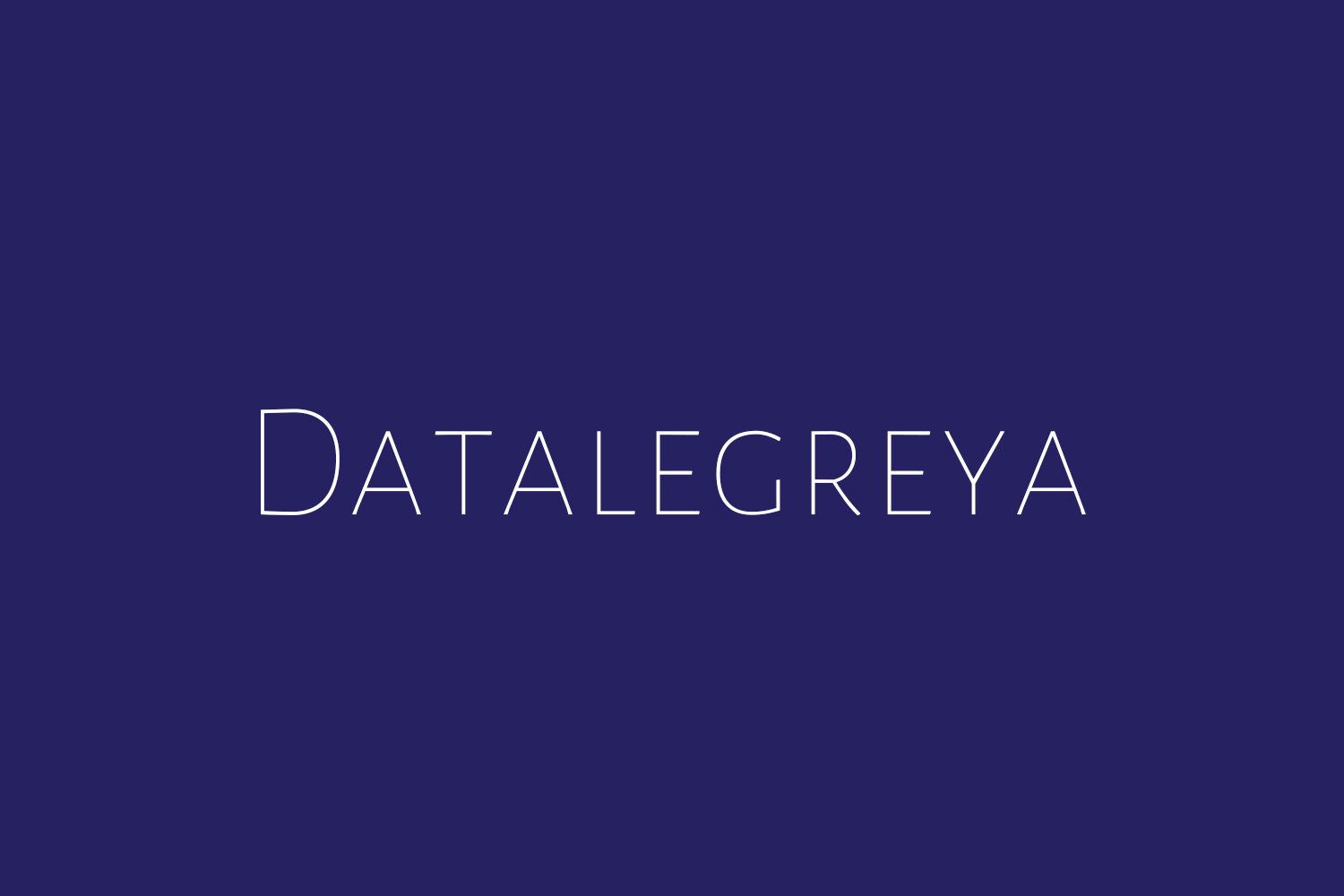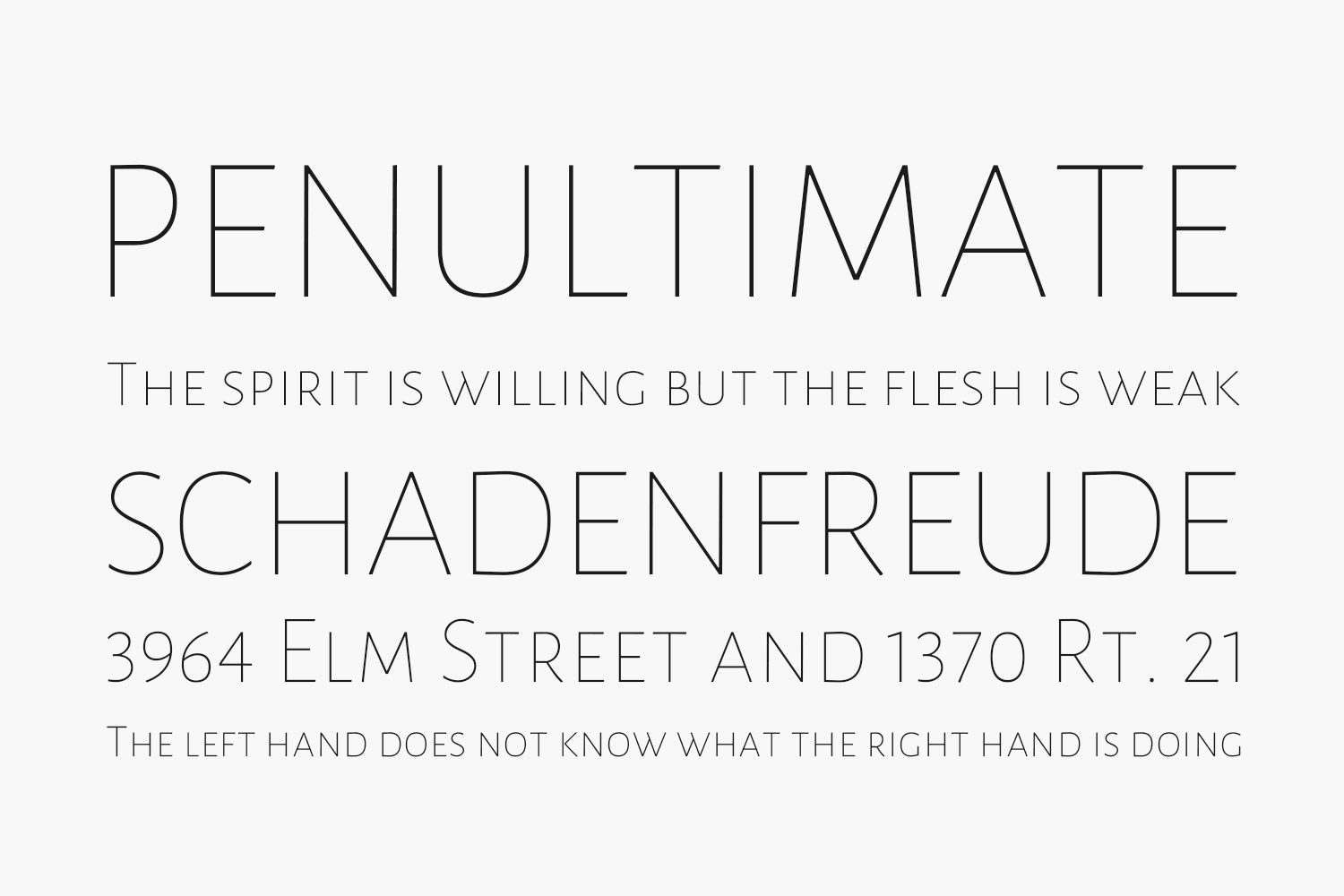
Datalegreya Free Font Family is a typeface which can interweave data curves with text. It is designed by Figs, on the basis of open source font Alegreya Sans SC Thin by type designer Juan Pablo Del Peral.
Datalegreya can be used in all contexts where small space is available to synthetically display graphical data: connected objects, embedded displays, annual reports, weather report, stock prices, etc. It doesn’t need any specialized software: users just have to install it in the operating system and launch any software able to display OpenType fonts, such as Microsoft Word, Apple TextEdit, Adobe Suite etc. Standards compliance makes it equally available on the web or software embedded.
Designed by Figs